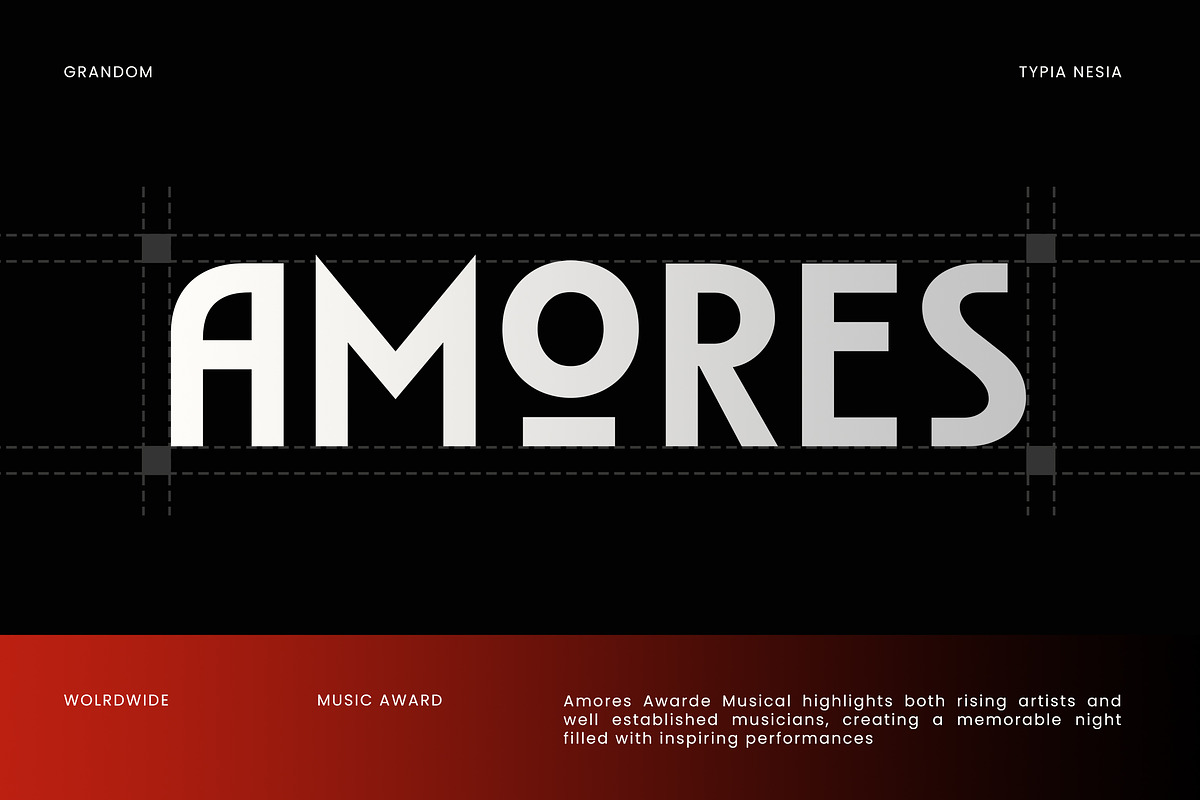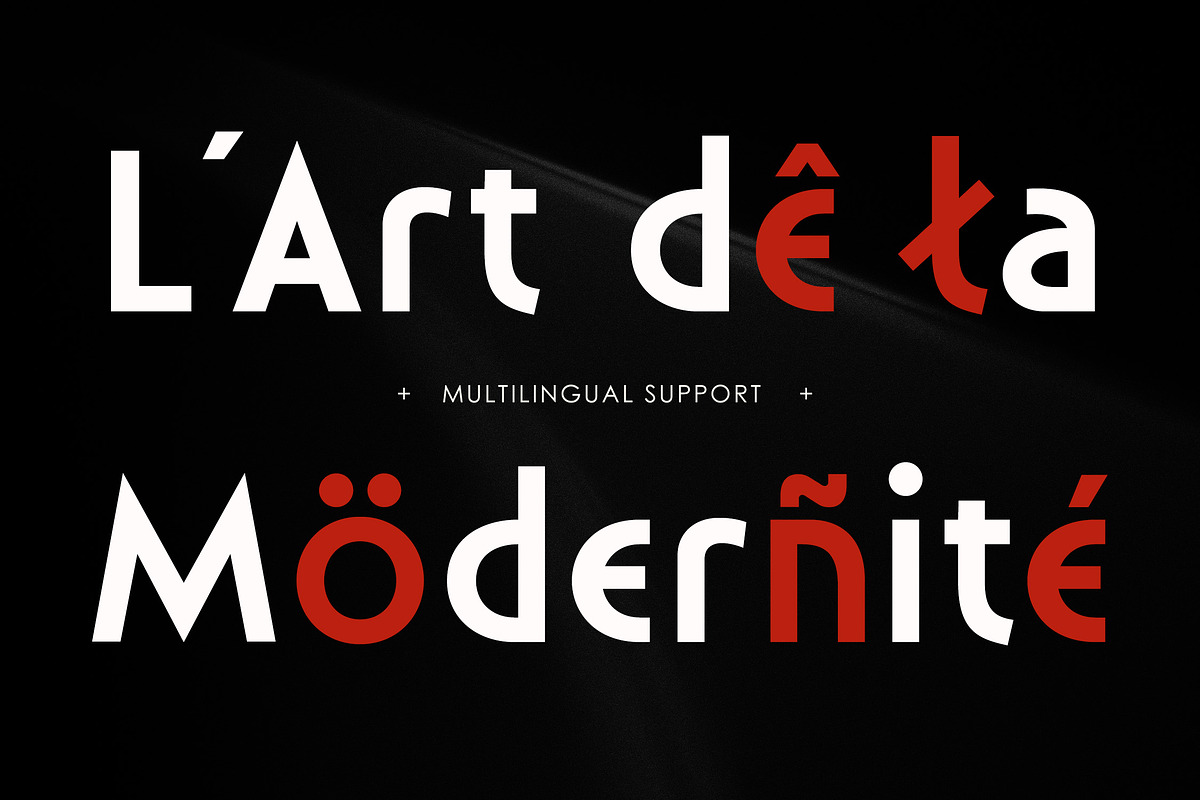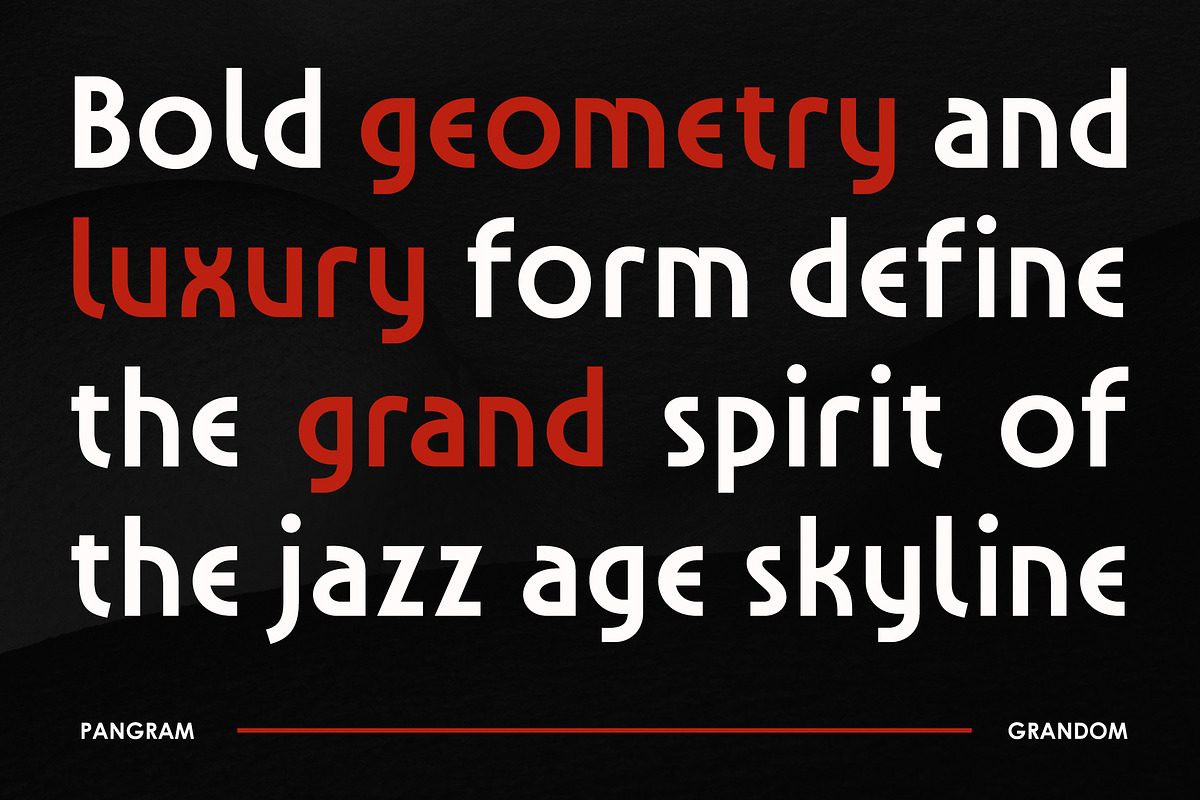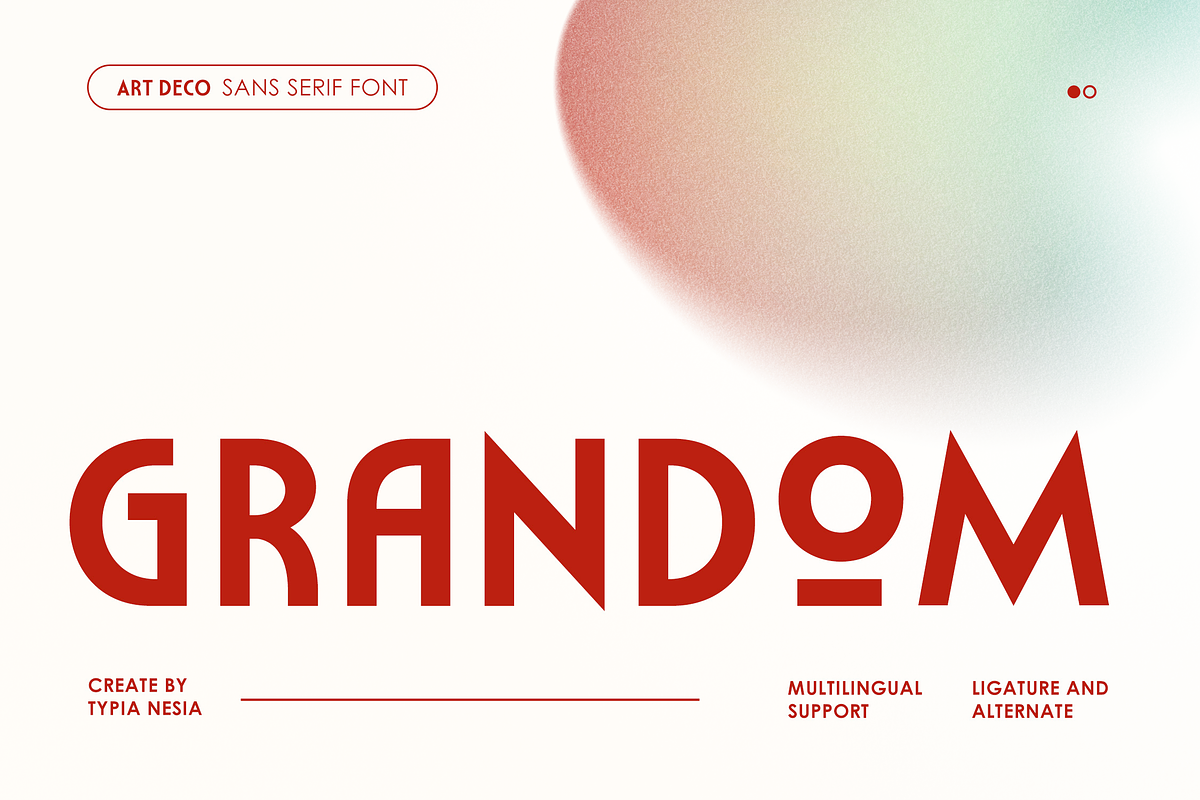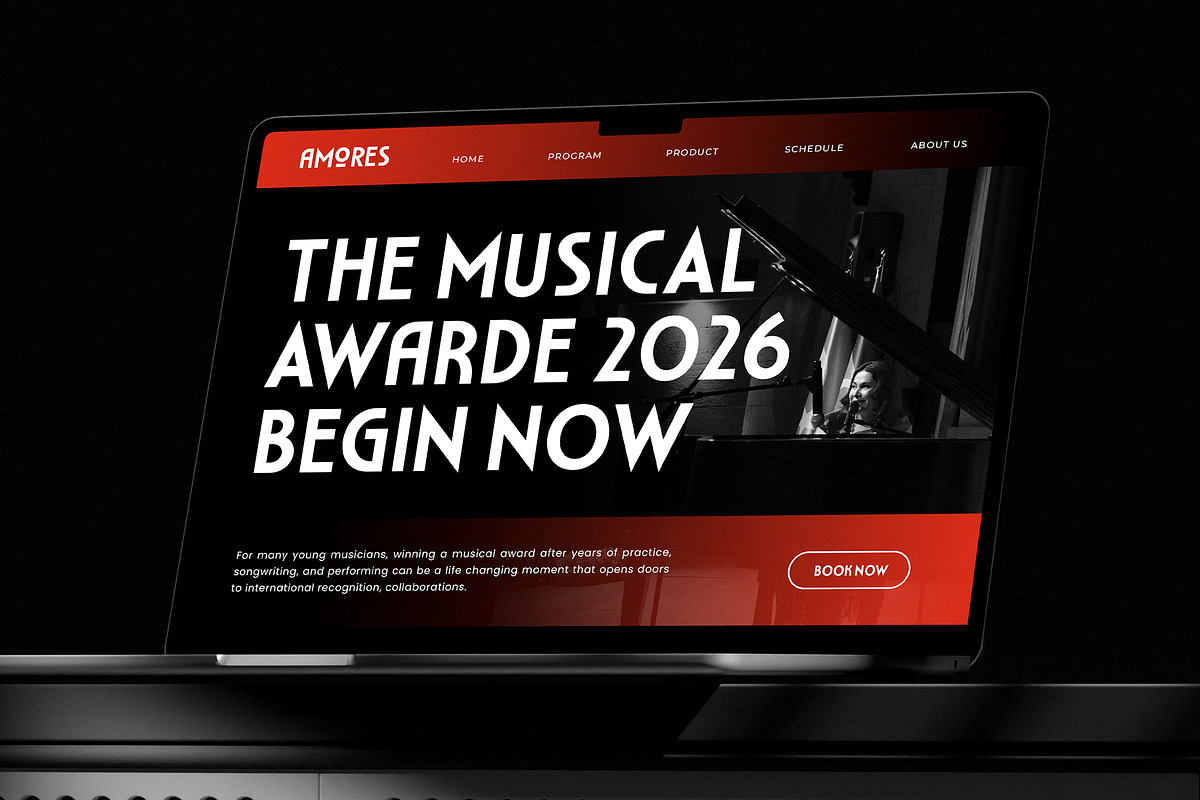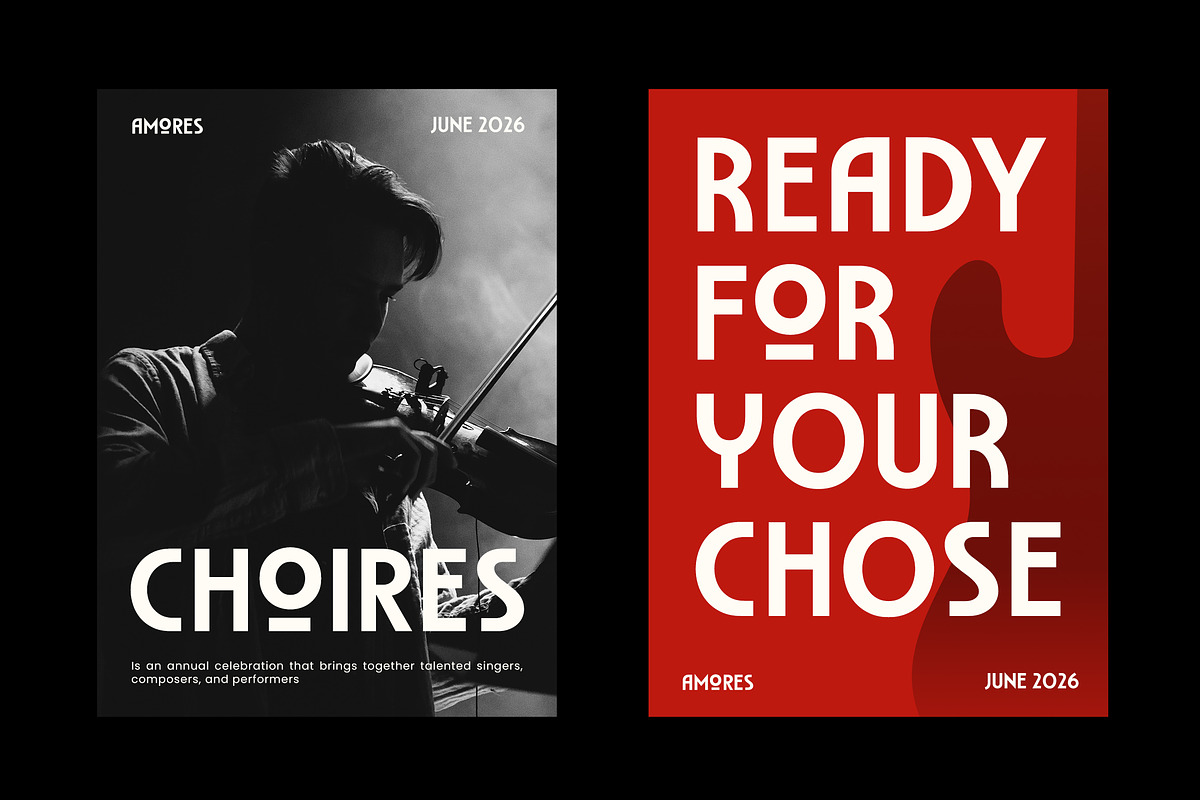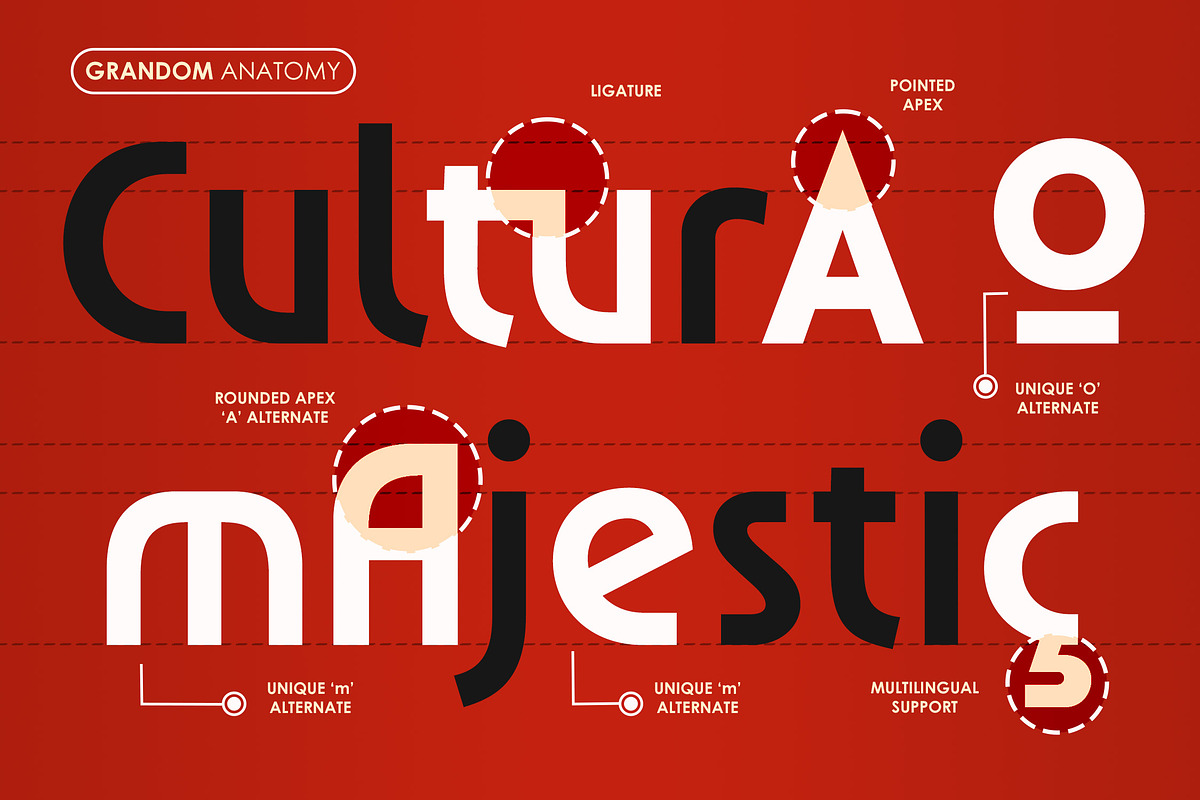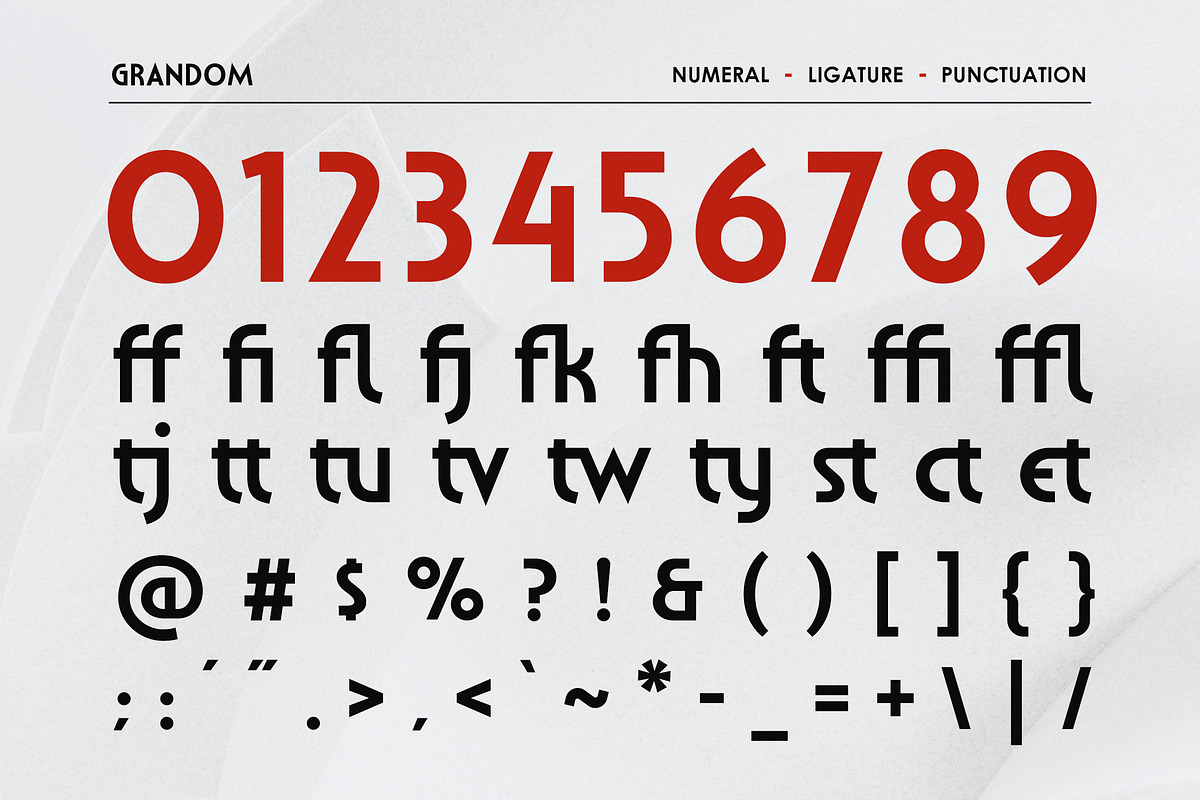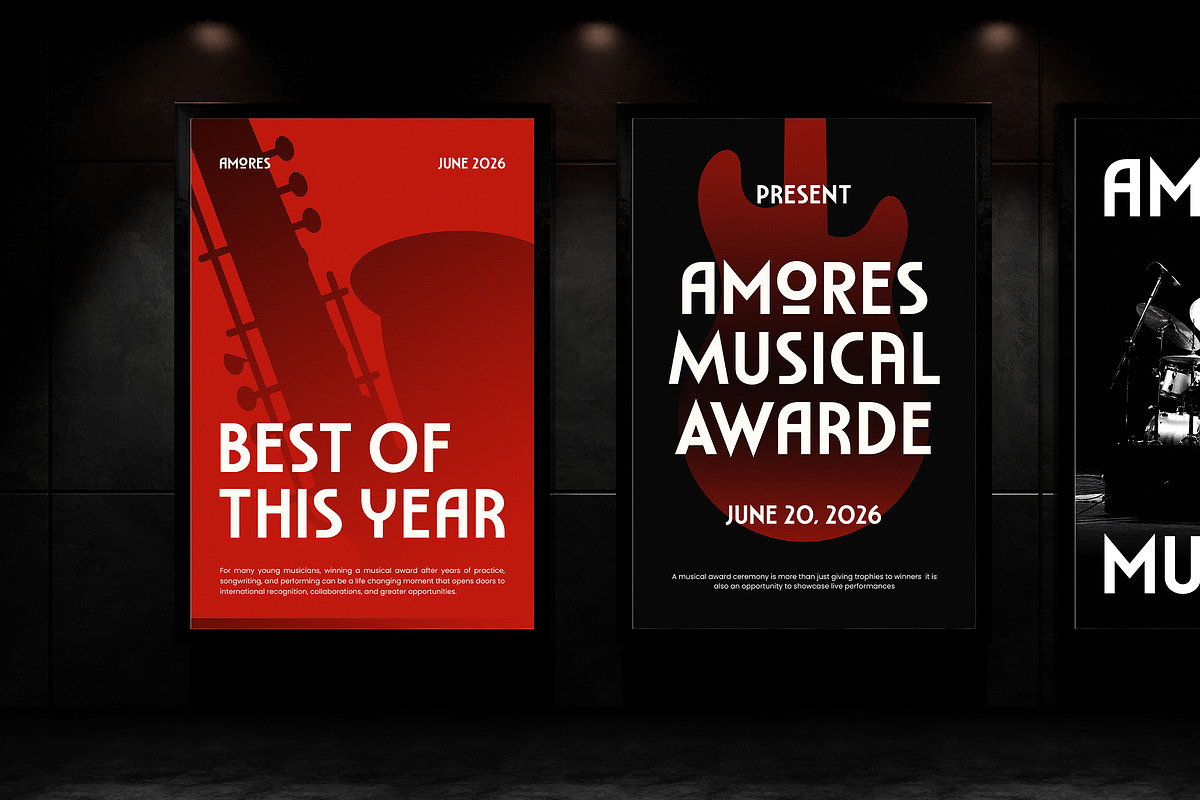
Grandom - Bold Modern Art Deco Font
Grandom - Bold Modern Art Deco Logo Font - Minimal & Clean Logo Font
Grandom is a bold modern Art Deco sans serif font designed to bring a strong, elegant, and professional look to contemporary design projects. Inspired by classic Art Deco aesthetics and refined with a modern, minimalist, and clean approach, it is perfect for logos, wordmarks, logotypes, headlines, posters, branding, corporate design, café branding, advertising materials, and any project that needs a confident and distinctive visual identity. It comes with alternates, ligatures, numerals, and punctuation, allowing designers to create unique compositions and expressive typographic layouts.
Create bold and elegant designs with Grandom.